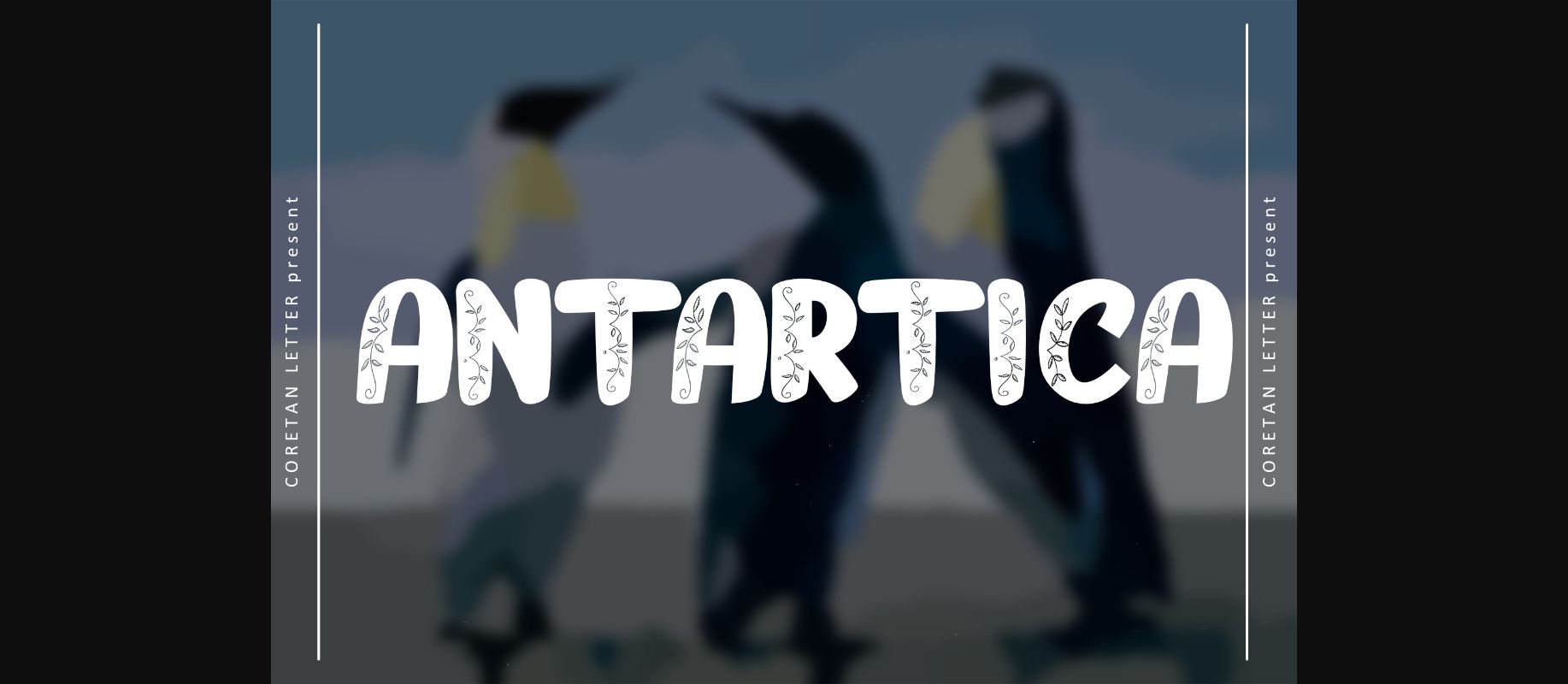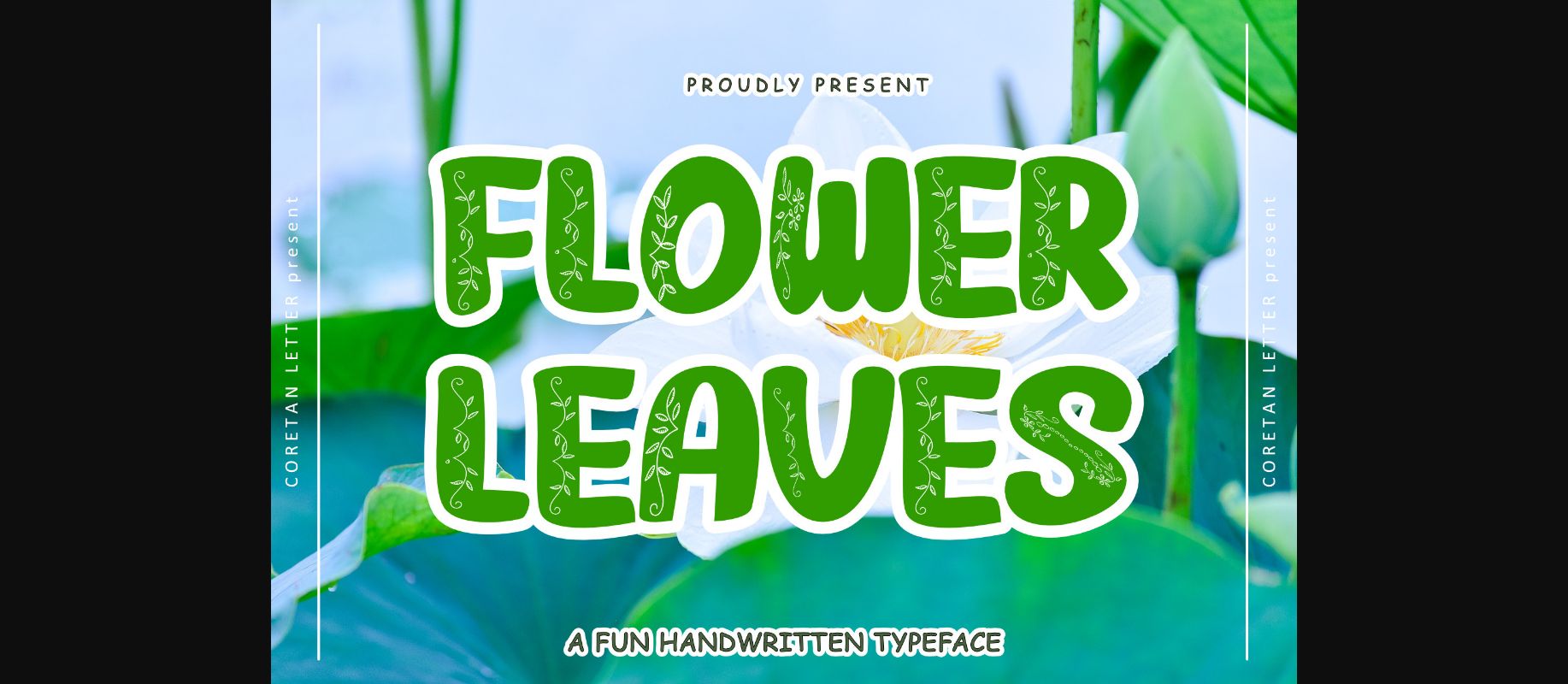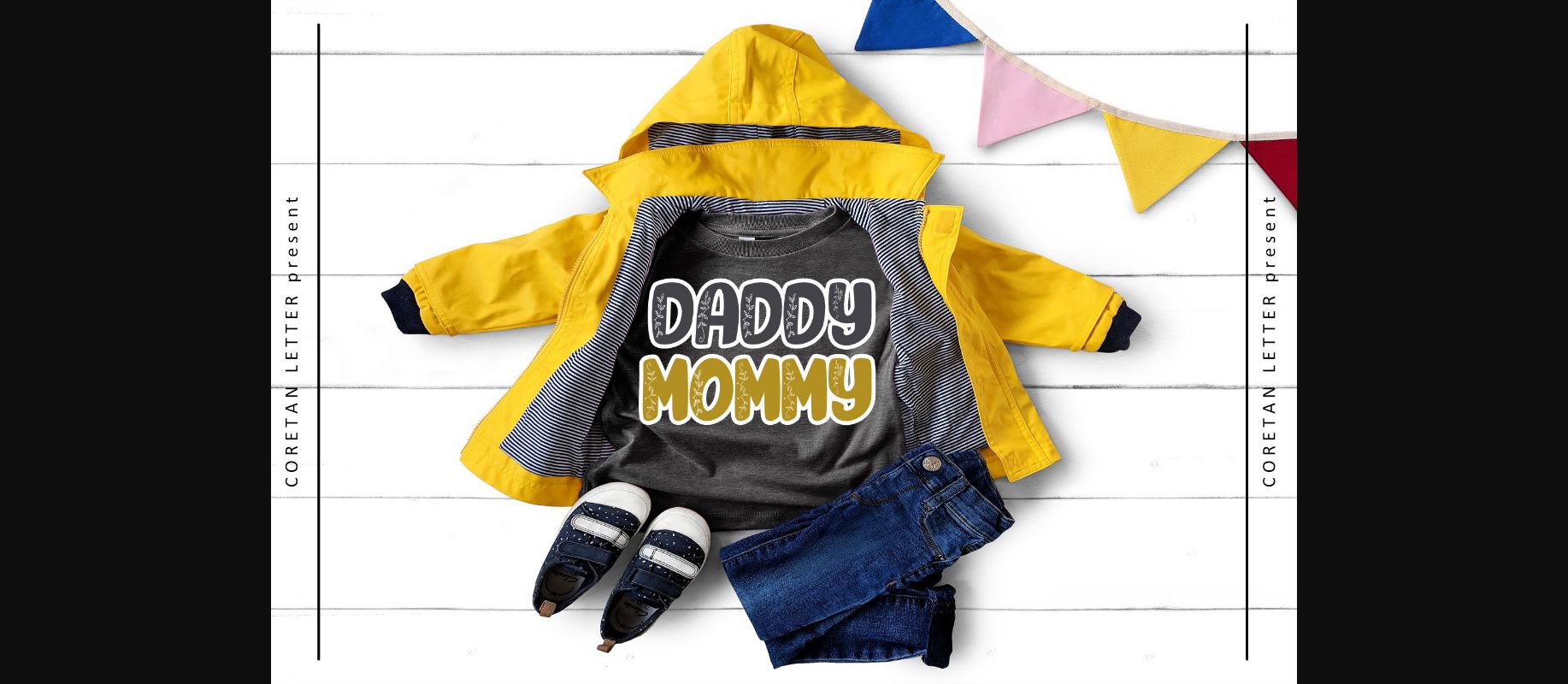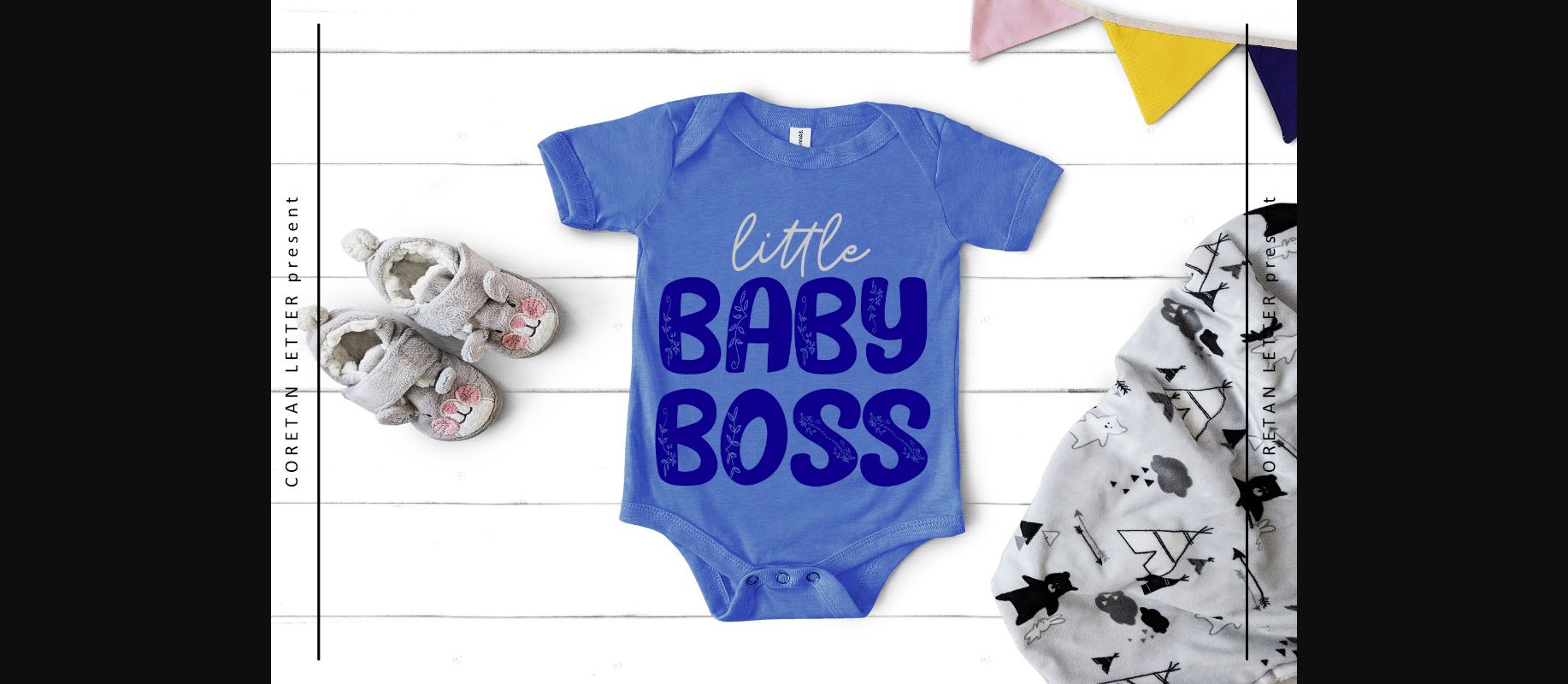
About Flower Leaves Font
Flower Leaves is a simple, thick lettered and unique decorative font, featuring lovely leaves as ornaments. It embodies playfulness and authenticity and is the perfect choice for any children activity or school project.